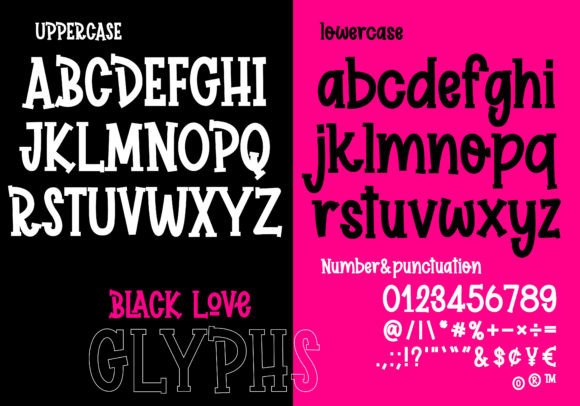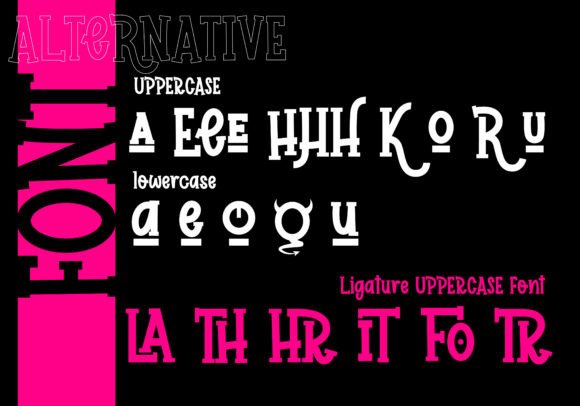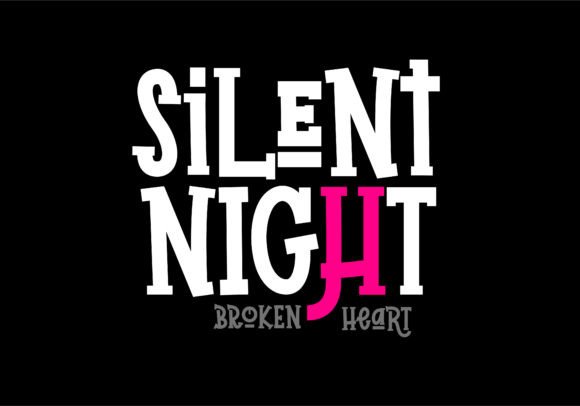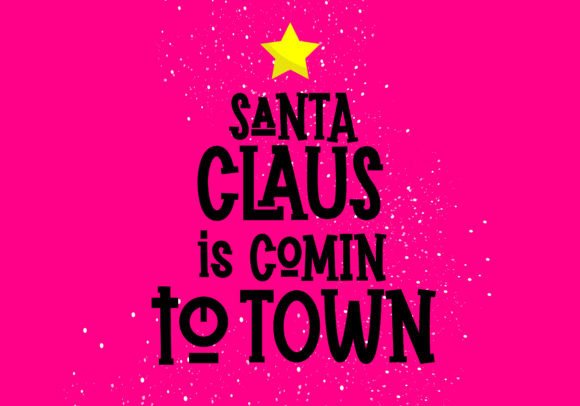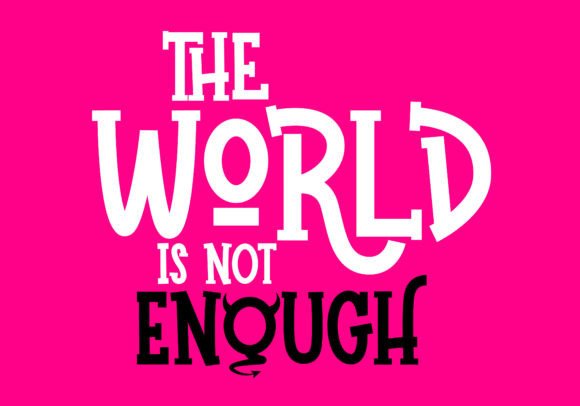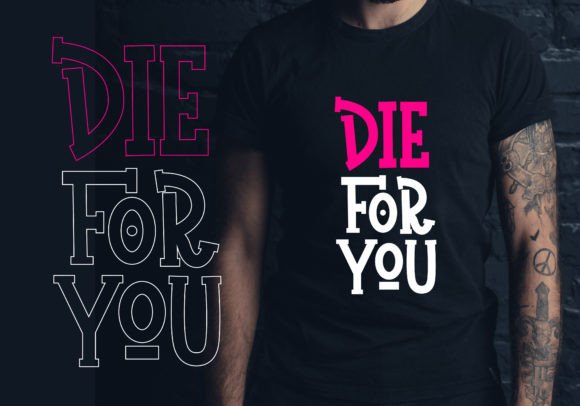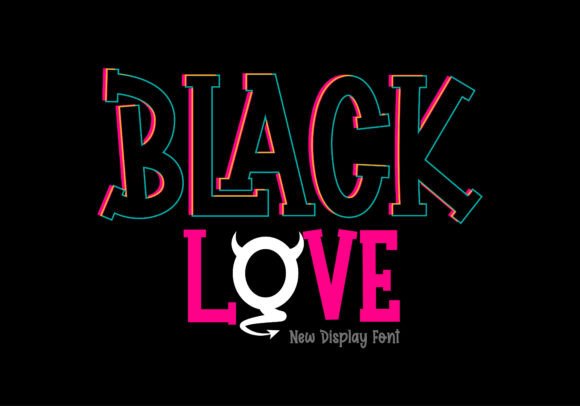
Introducing Black Love Font: The Playful and Quirky Display Font You Need
Are you tired of using the same old fonts in your designs? Do you want to add a touch of personality and whimsy to your creations? Look no further than Black Love Font, a playful and quirky display font that’s sure to elevate your font library. In this article, we’ll dive into the features and benefits of Black Love Font, and explore how it can be used to take your designs to the next level.
A Font that’s Full of Personality
Black Love Font is a one-of-a-kind display font that’s designed to add a touch of fun and playfulness to any design. Its quirky and charming personality makes it perfect for a wide range of projects, from branding and advertising to packaging and crafts. Whether you’re designing for a client or working on a personal project, Black Love Font is sure to bring a smile to your face and inspire your creativity.
One of the standout features of Black Love Font is its PUA (Private Use Area) encoding. This means that you can access all the glyphs and ligatures with ease, giving you complete control over your design. With PUA encoding, you can use the font’s built-in features to create unique and complex designs that would be impossible with a standard font.
Black Love Font is incredibly versatile, making it perfect for a wide range of design applications. Here are just a few ideas to get you started:
- Branding and Advertising: Use Black Love Font to create eye-catching logos, ads, and marketing materials that will grab attention and leave a lasting impression.
- Packaging: Add a touch of personality to your product packaging with Black Love Font. It’s perfect for labels, tags, and other packaging materials.
- Crafts: Black Love Font is a great addition to any crafter’s font library. Use it to create unique and personalized gifts, such as iron-on designs, stickers, and more.
- Digital Design: Use Black Love Font in your digital designs, such as social media graphics, blog posts, and email newsletters.
Why Choose Black Love Font?
With so many fonts on the market, why choose Black Love Font? Here are just a few reasons why this font stands out:
- Unique and Playful: Black Love Font is a one-of-a-kind font that’s sure to add a touch of personality to your designs.
- Easily Readable: Despite its playful nature, Black Love Font is still easily readable, making it perfect for use in a wide range of design applications.
- PUA Encoded: With PUA encoding, you can access all the glyphs and ligatures with ease, giving you complete control over your design.
- High-Quality: Black Love Font is a high-quality font that’s designed to deliver exceptional results in any design application.
Tips for Using Black Love Font
Here are a few tips for getting the most out of Black Love Font:
- Experiment with Different Sizes: Black Love Font looks great in a wide range of sizes, from small and delicate to large and bold.
- Play with Color: Black Love Font is perfect for use with bright, bold colors. Experiment with different color combinations to find the one that works best for your design.
- Mix and Match: Don’t be afraid to mix and match Black Love Font with other fonts to create a unique and eye-catching design.
Black Love Font is a playful and quirky display font that’s sure to elevate your font library. With its PUA encoding, unique personality, and endless design possibilities, it’s the perfect addition to any designer’s toolkit. Whether you’re a professional designer or a crafter, Black Love Font is sure to inspire your creativity and take your designs to the next level.